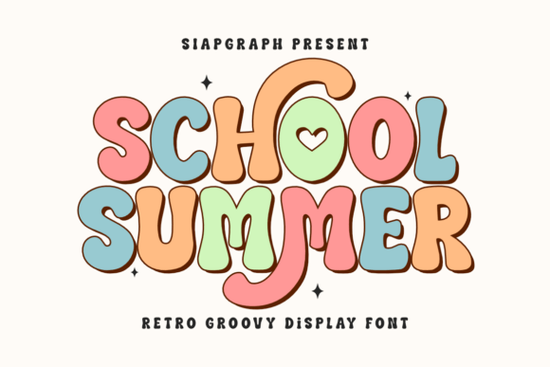
Choosing the right typography can completely change the mood of a craft project. If you want to add a nostalgic, 70s-inspired vibe to your t-shirts or stickers, the School Summer Font is a fantastic option. This adorable, retro groovy display font features soft curves and a bold appearance. It is highly readable, making it practical for print-on-demand sellers and small businesses who need their messaging to stand out immediately.
What makes a retro display font work for print-on-demand?
When selling custom merchandise, legibility and personality are equally important. A thick, bubbly typeface catches the eye from a distance. This makes it ideal for items like tote bags, coffee mugs, and wall art. Because the letters are wide and rounded, they hold up exceptionally well when cut from adhesive vinyl on machines like a Cricut or Silhouette. The smooth edges prevent tearing during the weeding process, which is a major advantage for creative hobbyists producing physical goods. Intricate, thin fonts often snap during weeding, but this bold display option ensures clean lines every time.
How can you pair this groovy typeface with other lettering?
Designing a balanced layout often requires mixing different font weights and styles. Since a bold, retro font takes up a lot of visual space, it usually needs a quieter companion. For a stark contrast, some designers mix bubbly lettering with edgy traditional styles. Using something like Tattoo Letter for subheadings creates a striking streetwear aesthetic that appeals to a younger audience.
If your project requires a delicate touch to balance the heavy groovy curves, try pairing it with a soft minimalist category. For instance, Aesthetic Rigelsia provides a thin, elegant contrast for secondary text. This combination works beautifully on wedding invitations or boutique branding where you want a touch of retro charm without overwhelming the delicate details.
This bubbly style also works wonderfully alongside mystical designs found in the celestial typography group. Combining it with Pearl Moon creates a dreamy, whimsical look for book covers, tarot card designs, or astrology-themed journals.
Which projects are best suited for bold, playful typography?
Small business owners can use groovy text for seasonal promotions while relying on a classic initial collection for their main logo. A structured option like the Monogram Bundle keeps the core branding professional, while the retro font draws attention to sales or limited-edition product drops. Shoppers browsing for festival gear or retro-themed gifts are naturally drawn to this aesthetic, and highly legible text increases the chances of your products catching their attention.
Here are a few practical ways to use this typography in your next project:
- Social Media Graphics: Use the thick letters for Instagram quotes or Pinterest headers to stop users from scrolling past your content.
- Apparel Design: Print vibrant, wavy text layouts on pastel-colored t-shirts for a trendy vintage look.
- Sticker Sheets: Combine the bold font with simple vector illustrations of flowers or suns to sell on platforms like Etsy.
- Event Signage: Create welcoming signs for baby showers, summer camps, or birthday parties where a friendly tone is necessary.
How do you prepare the files for commercial printing?
Before sending your design to a print shop, make sure to outline your text. Converting the typography to vector shapes ensures that the printer does not need to install the specific file on their computer. You can easily do this in Adobe Illustrator or free alternatives like Inkscape. Always check the licensing terms on the marketplace to confirm you have the correct commercial rights for physical products.